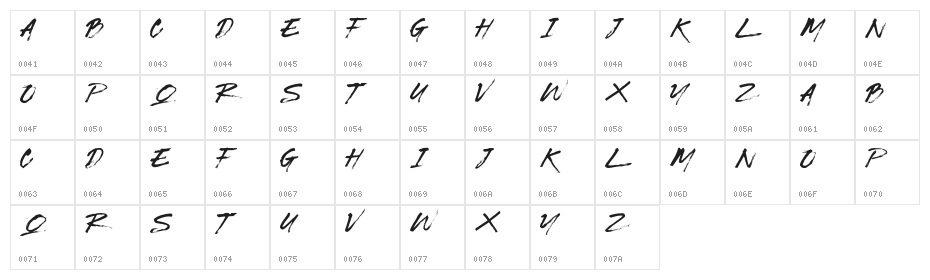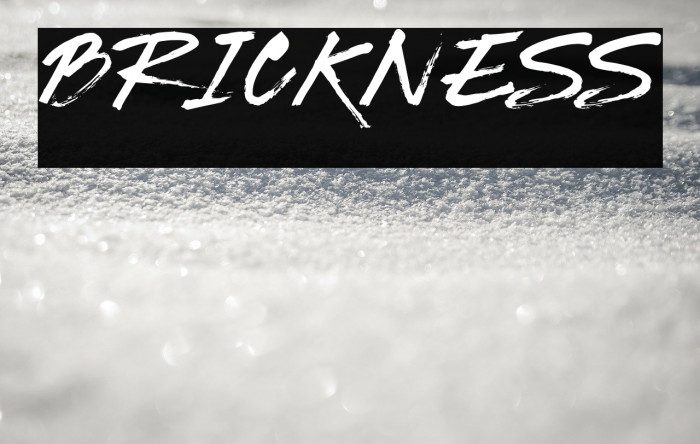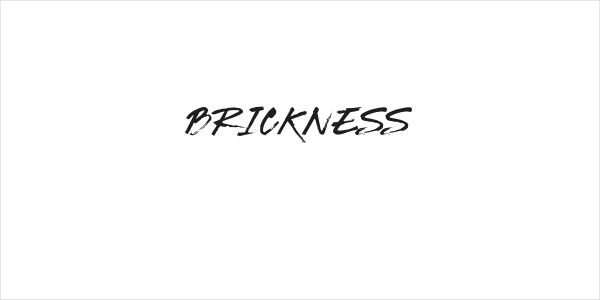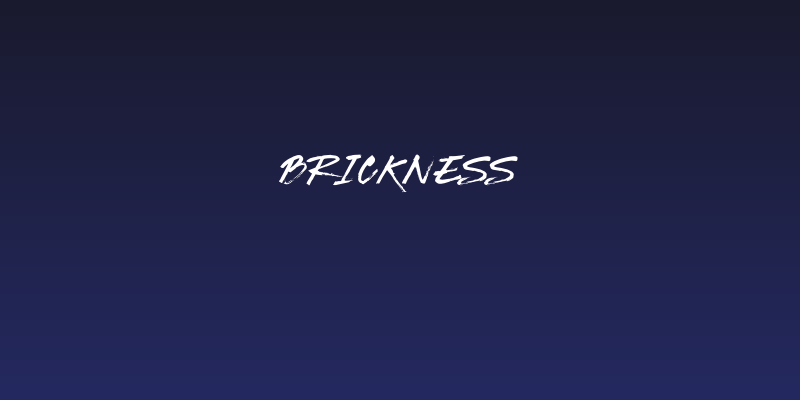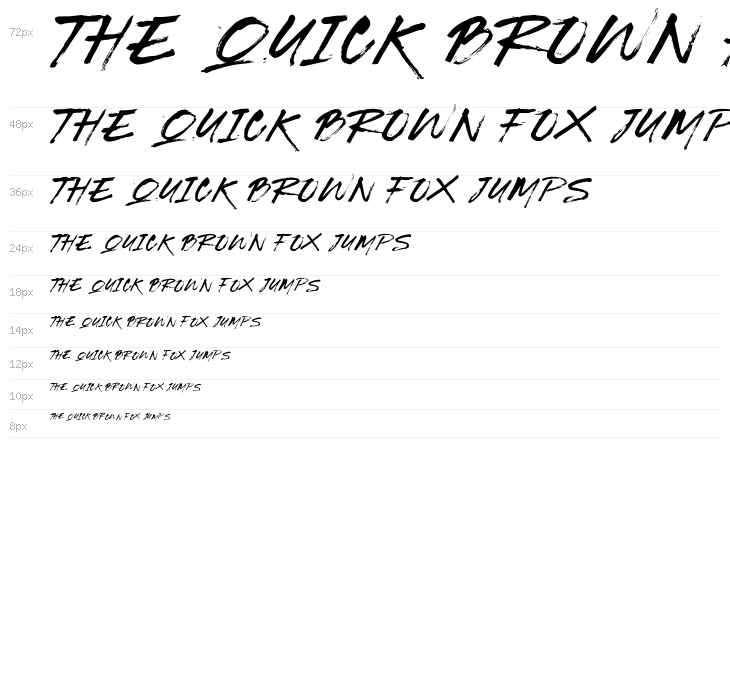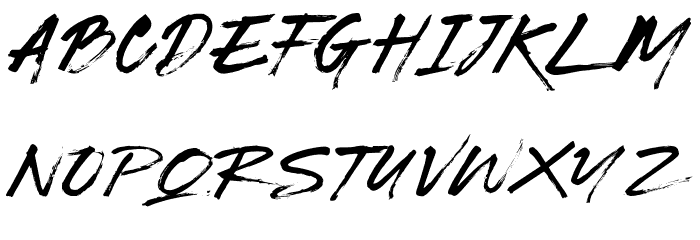
BRICKNESS Font
BRICKNESS Description
This font features a dynamic and energetic brush script style, characterized by its bold and expressive strokes. The letters exhibit a hand-painted appearance, with varying thicknesses that create a sense of movement and fluidity. The uppercase letters are particularly striking, with dramatic flourishes and a slightly slanted orientation that adds to the overall sense of motion. The lowercase letters maintain this lively aesthetic, offering a cohesive and visually engaging look. The font's rough edges and textured appearance give it a raw, artistic feel, making it suitable for projects that require a bold and creative touch.